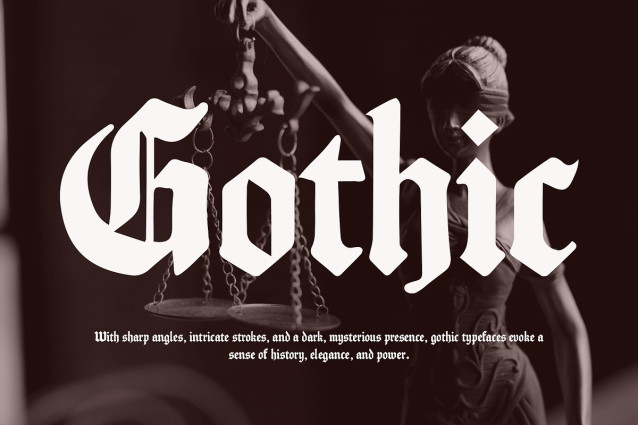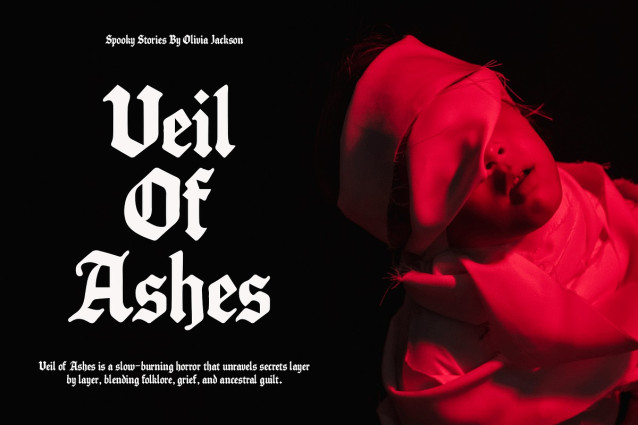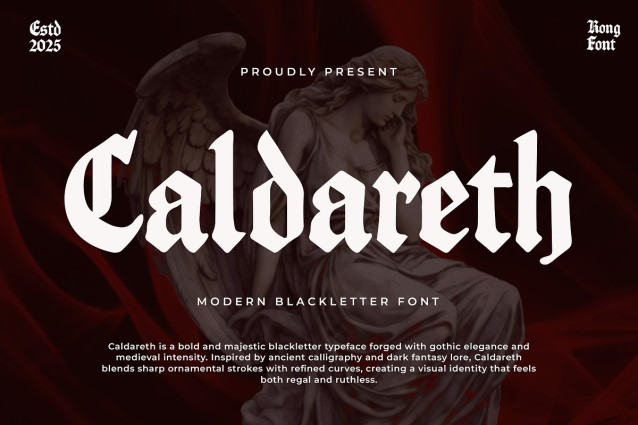
Caldareth Font
Caldareth Font a modern blackletter font that fuses the dramatic elegance of Gothic script with a fresh, updated style. Its strong strokes, intricate details, and clean refinements make it the perfect choice for designers who want to honor tradition while embracing modern design sensibilities.